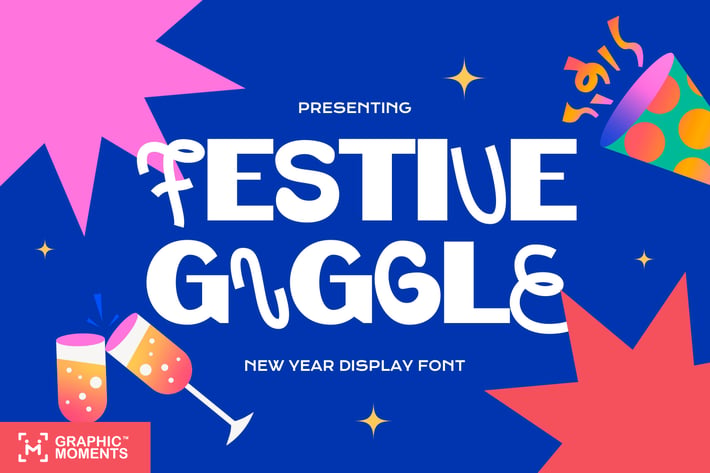
New Year Font - Festive Giggle
Celebrate in Style with Festive Giggle – A Playful New Year Display Font.
Add a burst of joy and excitement to your New Year projects with Festive Giggle! This lively and whimsical display font is designed to infuse your designs with fun and celebration. Perfect for party invitations, event posters, social media graphics, and more, Festive Giggle brings a festive charm that stands out in any creative project.
With its bold and quirky letterforms, this font captures the spirit of New Year's Eve festivities – sparkling, vibrant, and unforgettable. Whether you're crafting digital content or printable materials, Festive Giggle is your go-to choice for making every design shine with personality and flair.